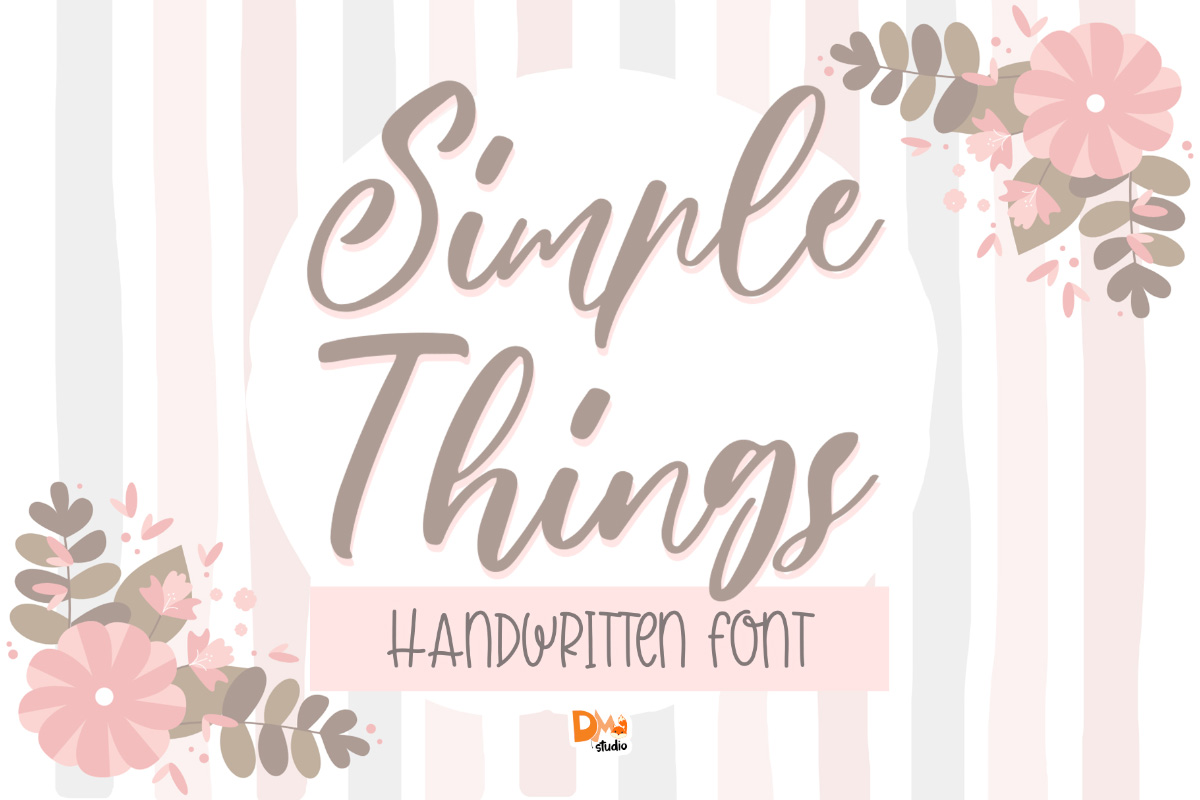
Simple Things Font
Simple Things Font is a minimalist and versatile typeface designed to bring elegance and clarity to your designs. With its clean letterforms and timeless style, this font is perfect for a variety of applications, from branding to editorial design. Elevate your projects with the understated sophistication of the Simple Things Font.
1. Minimalist and Elegant Design: The Simple Things Font features clean and understated letterforms that exude elegance and clarity.
2. Versatility in Application: Ideal for a wide range of design projects, from logos to headlines, adding a touch of timeless sophistication to your creations.
4. Uppercase and Lowercase Letters: Both uppercase and lowercase letters included for creative flexibility.